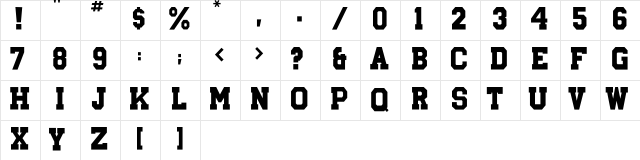
Football-Caps Regular
Design Context for Football-Caps Typeface
Football-Caps takes a measured approach to typography — its balanced proportions and neutral character make it a reliable workhorse for both digital and print work.